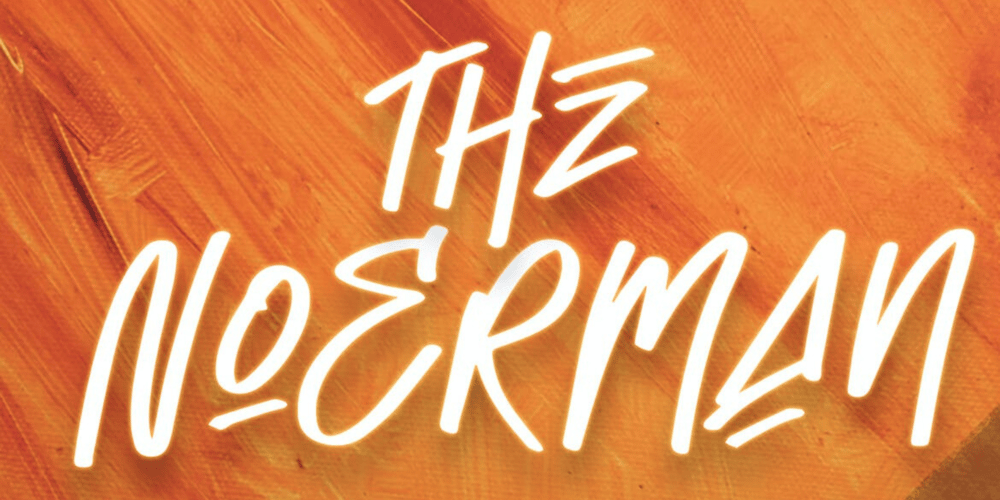
The Noerman Font Family was designed by Irpan Maulana and published by Create Big Supply. The Noerman contains 1 styles and family package options. Discover The Noerman, an exciting graffiti font inspired by gemstone designs. With its vibrant and playful style, this font is perfect for creating eye-catching graffiti posters, Hip Hop music artwork, children’s posters, flyers, children’s books, cartoons, comics, and more.The Noerman unleashes your creativity with its unique blend of uppercase and lowercase characters. Express your urban artistry with the expressive and dynamic letterforms that make every word pop off the page. From bold tags to intricate graffiti pieces, this font brings an authentic street art vibe to your designs.Designed for versatility, The Noerman features a comprehensive character set that includes numbers, punctuation, and multilingual support. Break language barriers and reach a global audience with ease. The inclusion of ligatures adds extra flair and enhances the seamless flow of your typography.Unlock endless possibilities with PUA (Private Use Area) Encoding, providing access to special characters and glyphs. Let your imagination run wild as you create custom designs that leave a lasting impression.